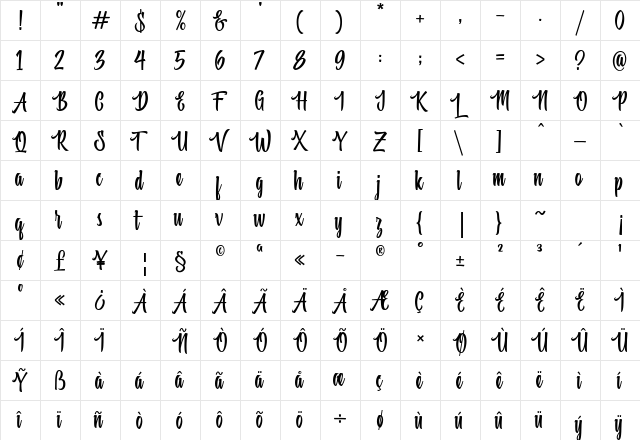
Beastic Regular
Design Context for Beastic Typeface
Beastic is a composed and adaptable typeface that performs quietly and consistently across a wide range of design contexts.